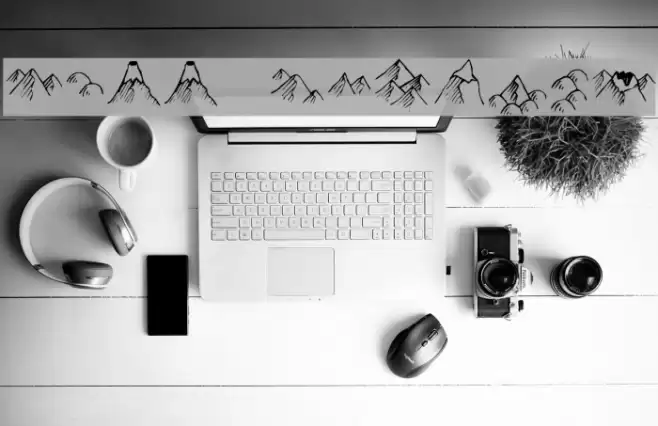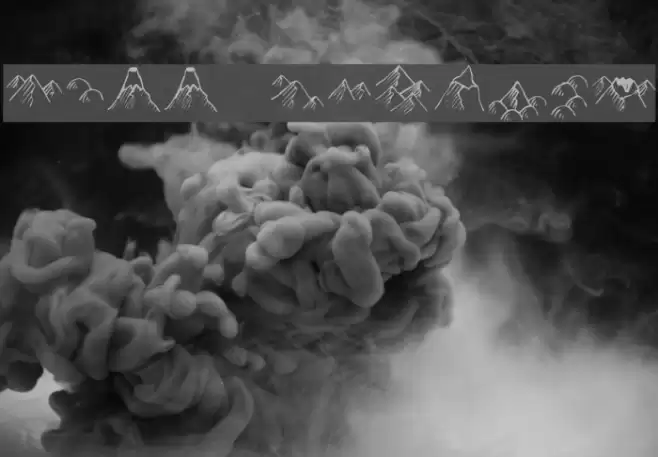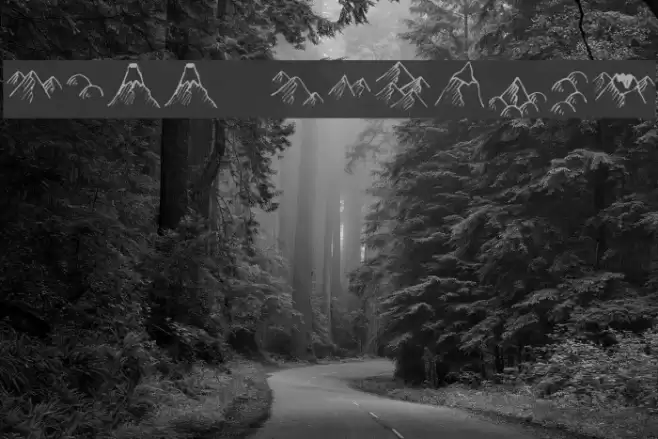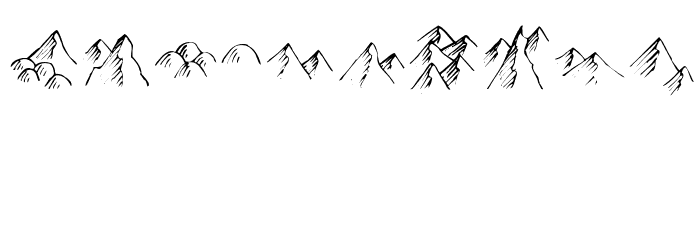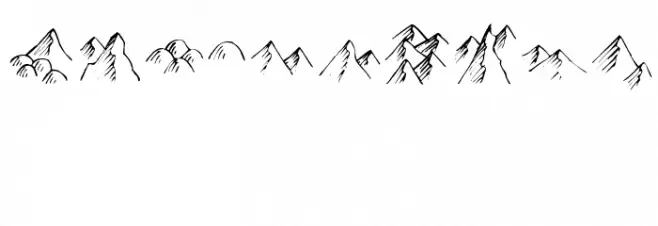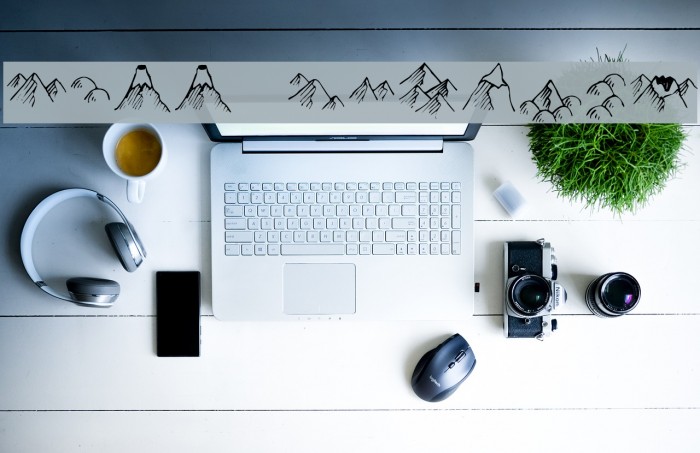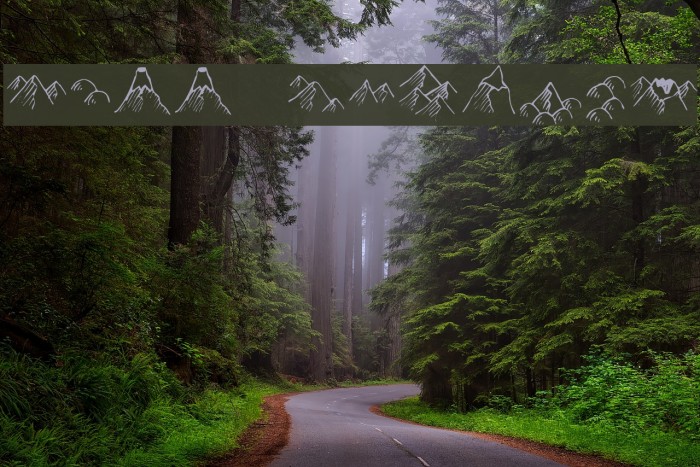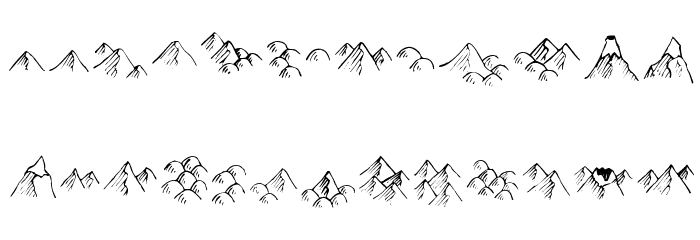
Hill Country Font
Hill Country Description
This image contains hand-drawn illustrations of mountain ranges and hills, rendered in a sketchy, black-and-white style with varied line thickness and hatching for shading. The artwork is decorative and does not represent a font or typeface.
Hand-drawn mountain and hill illustrations from Dingbats fonts.
- Proposed Projects: Nature-themed designs, map decorations, adventure branding, outdoor posters.
- Overall Style: Decorative, Hand-drawn, Sketch
- Use Case: Illustrations, Decorative borders, Themed graphics